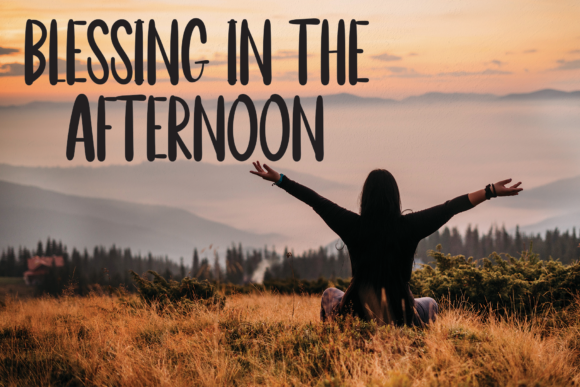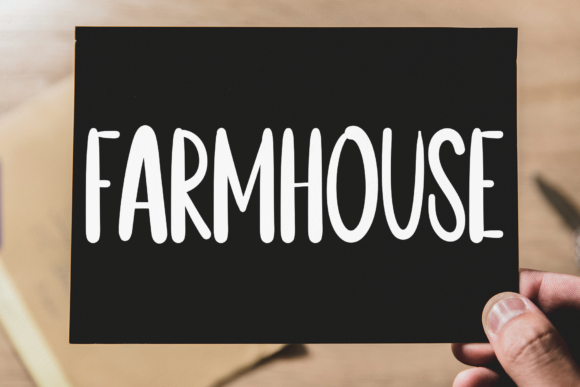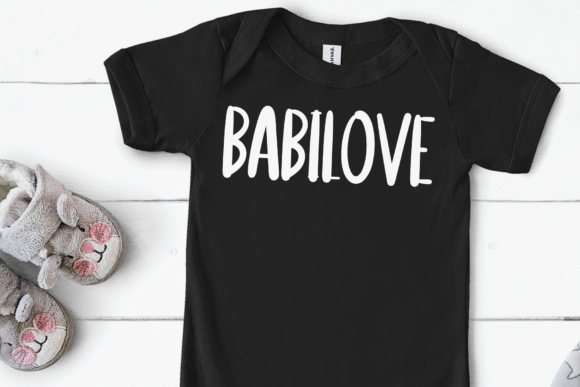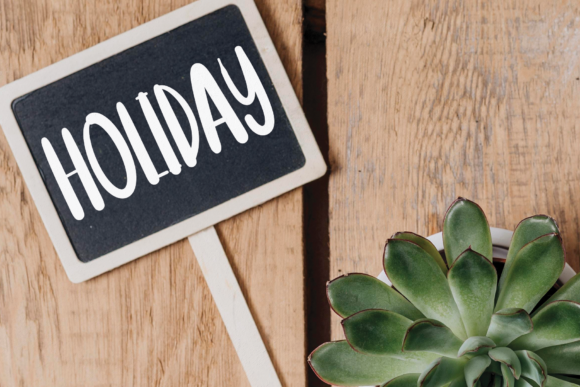
Discover the Charm of Clams and Fish Font: A Clean, Adaptable, and Friendly Handwritten Delight
Are you on the hunt for a font that embodies the perfect blend of cleanliness, adaptability, and friendliness? Look no further than the Clams and Fish Font. This beautifully crafted handwritten font is designed to elevate your designs with its natural and simple style, making it an ideal match for a wide range of creative projects. In this article, we’ll dive into the world of Clams and Fish Font, exploring its unique features, benefits, and uses, as well as provide you with valuable insights on how to make the most of this versatile typeface.
What is Clams and Fish Font?
Clams and Fish Font is a stunning example of a handwritten font that exudes warmth and approachability. Its clean lines, smooth curves, and effortless flow make it a joy to read and work with. This font is perfect for designers and crafters who want to add a personal touch to their projects without compromising on legibility or style. Whether you’re creating a logo, branding materials, social media graphics, or even a website, Clams and Fish Font is sure to impress.
Key Features of Clams and Fish Font
- Clean and Adaptable: Clams and Fish Font boasts a clean and adaptable design that seamlessly integrates with various design styles, from modern and minimalist to vintage and rustic.
- Handwritten with Love: This font is carefully crafted to mimic the natural flow of handwritten text, giving your designs a personal and human touch.
- Simple yet Effective: The simplicity of Clams and Fish Font makes it incredibly versatile, allowing you to use it for a wide range of applications, from headings and titles to body text and captions.
- Natural and Legible: The font’s natural style and smooth curves ensure excellent legibility, making it perfect for both digital and print materials.
Benefits of Using Clams and Fish Font
So, why choose Clams and Fish Font for your next project? Here are just a few benefits you can expect:
- Enhance Your Brand’s Personality: With Clams and Fish Font, you can add a unique and friendly touch to your brand’s visual identity, helping you connect with your audience on a more personal level.
- Streamline Your Design Process: The font’s adaptability and simplicity make it easy to use across various design platforms and applications, saving you time and effort.
- Stand Out from the Crowd: Clams and Fish Font is a unique and refreshing addition to any design project, helping you differentiate yourself from competitors and grab the attention of your audience.
How to Use Clams and Fish Font
Getting started with Clams and Fish Font is easy. Here are some tips to help you make the most of this amazing font:
- Pair it with Other Fonts: Experiment with pairing Clams and Fish Font with other fonts to create stunning contrast and visual interest.
- Play with Colors: The font’s clean design makes it easy to use with a wide range of colors and textures, so don’t be afraid to get creative.
- Use it for Headings and Titles: Clams and Fish Font is perfect for headings and titles, where its unique style can really shine.
In conclusion, Clams and Fish Font is a beautiful, clean, adaptable, and friendly handwritten font that’s perfect for designers and crafters looking to add a personal touch to their projects. Its natural and simple style makes it an excellent match for a wide range of designs, and its versatility ensures that it can be used across various applications. So why wait? Give Clams and Fish Font a try today and discover the difference it can make in your designs.
So, use your imagination and exceed all your expectations with Clams and Fish Font. Create something amazing and make your designs stand out with this incredible font.